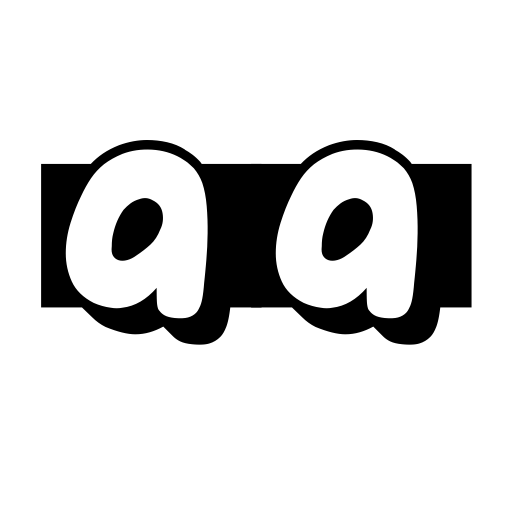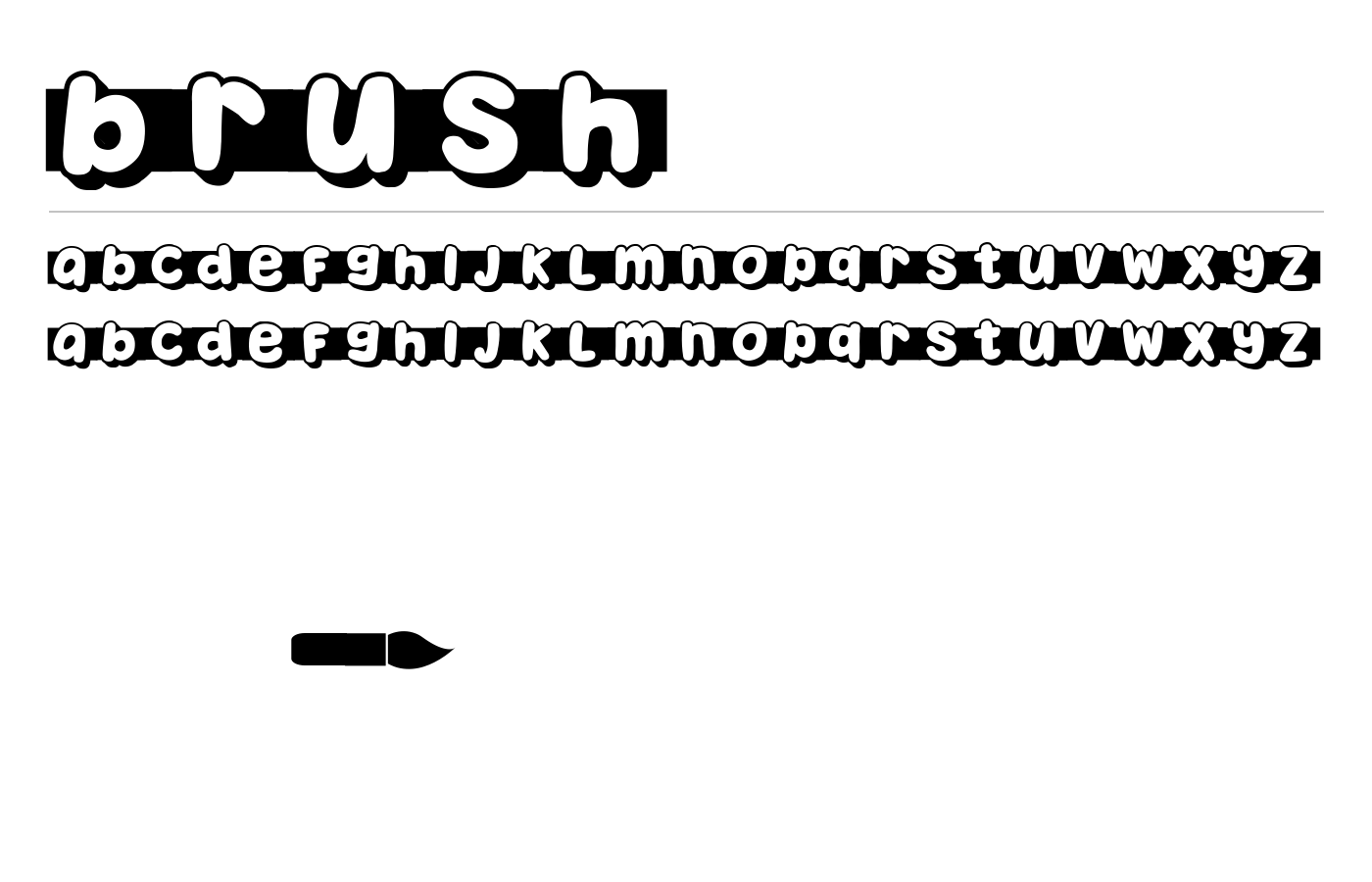
Brush Font is a bold and playful sans serif typeface with soft, rounded letterforms that resemble hand-painted brush strokes. Its chunky shapes and thick, uniform weight create a friendly and informal vibe, making it ideal for casual branding, children’s materials, and fun headlines where a lively, approachable look is desired. This font works wonderfully in designs that need a strong yet whimsical personality.
Brush Font
About Brush Font
| Font family | Brush Font |